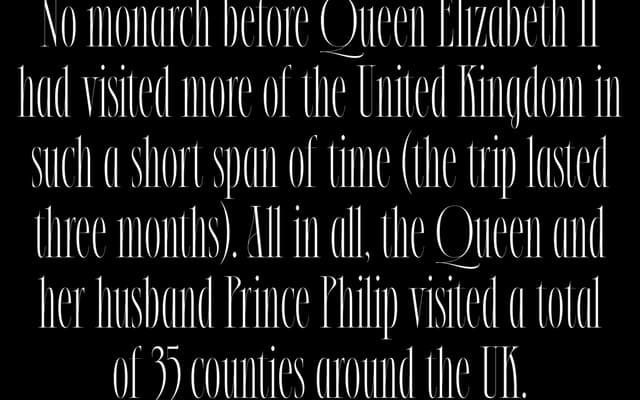
A text serif from Beasts of England, sold as a single licence tier and accompanied by an evocative personal narrative about a childhood encounter with the Queen.
Alder Road is a text serif from the independent British foundry Beasts of England, priced at $32 for a single-user licence with multi-user tiers available. The product page forgoes technical specimen copy in favour of a short autobiographical story set on the corner of Alder and Mossley roads, framing the typeface within a distinctly British sensibility. A sample PDF is available for review before purchase.
The specimen and narrative suggest a traditional text serif with classical proportions; the page lacks technical detail but the literary, nostalgic tone and name point toward a refined text-oriented design consistent with a transitional serif subcategory.